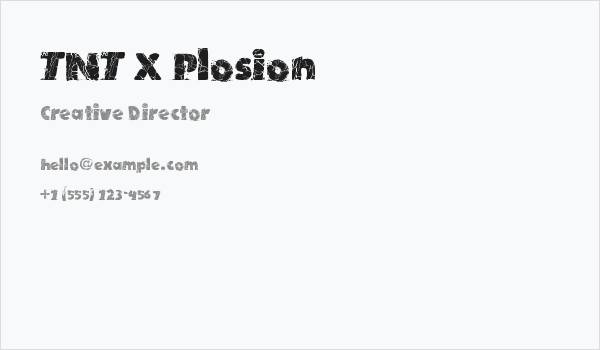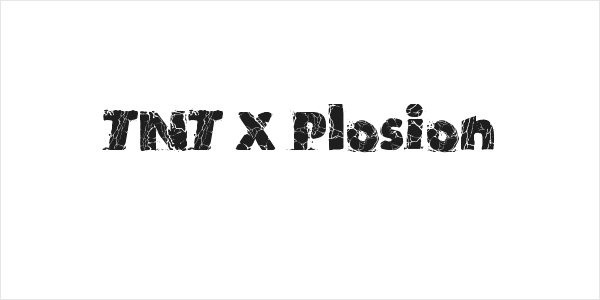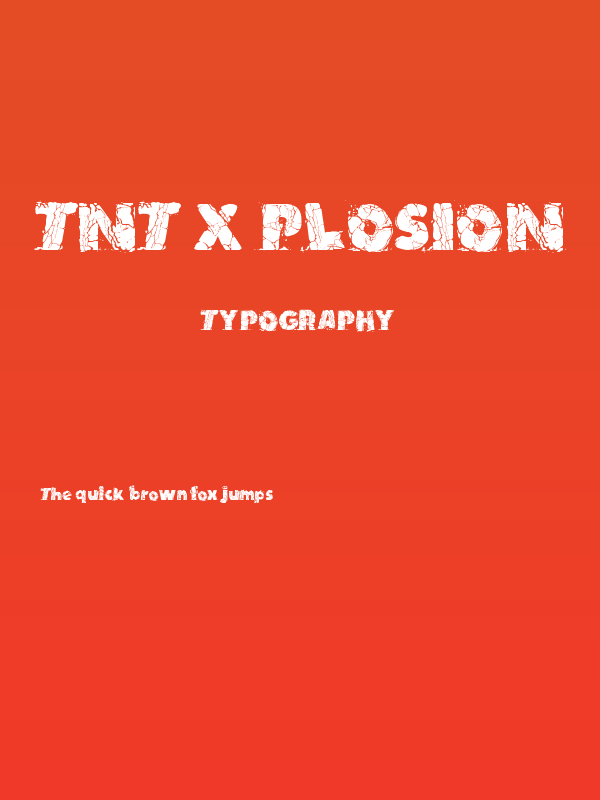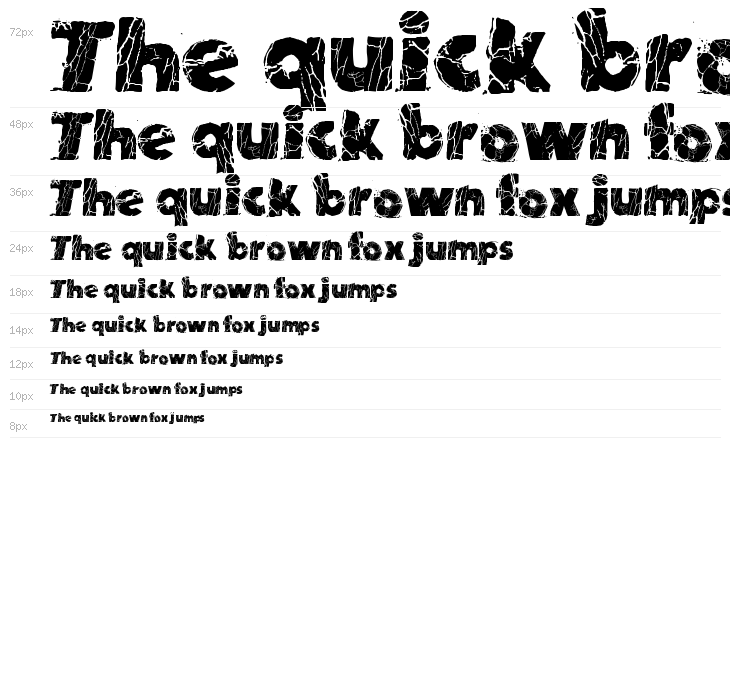
TNT X Plosion Font
TNT X Plosion Description
This font features a bold and explosive design, with a distressed and cracked texture that gives it a dynamic and energetic appearance. The characters are bold and impactful, making them stand out with a rugged, grunge-like style. The uppercase and lowercase letters, along with numbers and special characters, maintain a consistent theme of fragmentation and roughness, adding to its unique and edgy look. This font is perfect for projects that require a strong visual impact and a sense of movement or chaos.
Proposed ProjectsIdeal for music album covers, extreme sports branding, action movie posters, and edgy graphic design projects.